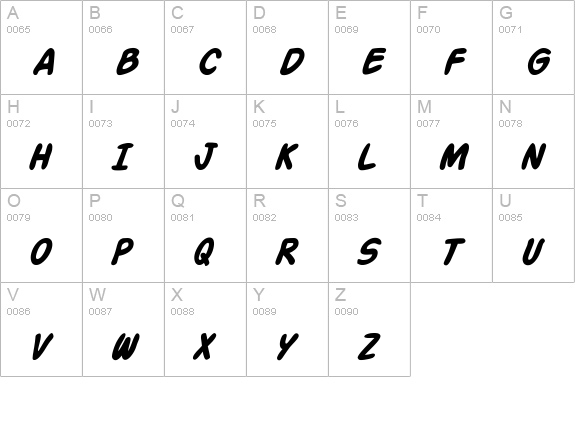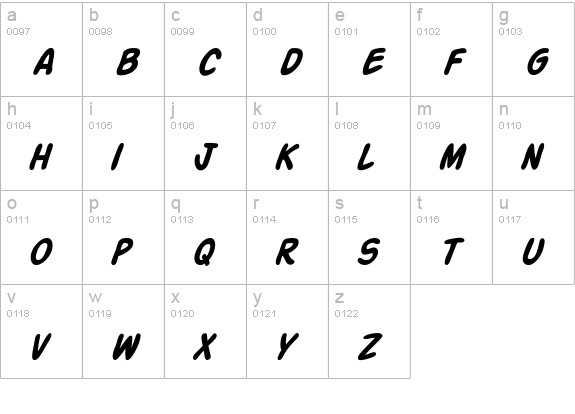
Action Man Bold Italic is a strong, high-contrast, italic variant in the Action typeface family \xE2\x80\x94 well suited to headlines, attention-grabbing titles, and strong calls-to-action.
Introducing Action Man Bold Italic font, a dynamic and powerful typeface designed to grab attention and make a bold statement. This modern and versatile font is perfect for all your action-packed design projects, from posters and flyers to logos and social media graphics. With its strong and impactful appearance, Action Man Bold Italic is sure to leave a lasting impression on your audience. The italicized style adds a touch of flair and sophistication, making it stand out from the crowd. And the best part? Action Man Bold Italic is available for free download at FontsMarket.com. So go ahead and unleash your creativity with this eye-catching font that is sure to elevate your designs to the next level.